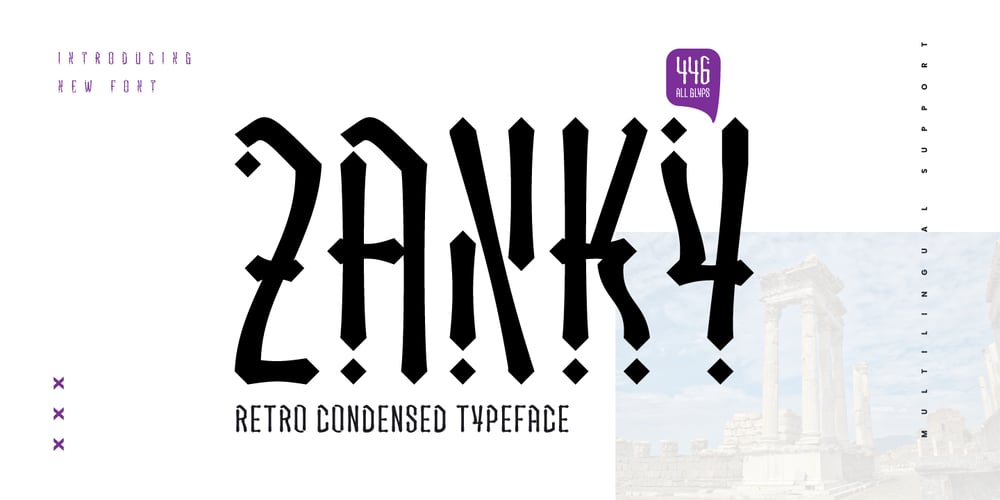
Zanky Font Family was designed by Lita Faolina and published by Product Type. Zanky contains 1 styles and family package options. Introducing Zanky, the perfect solution for any project that requires a touch of retro, vintage, and classic display. With its unique condensed shape and stylistic set alternate, this font is the perfect addition to any design project.Zanky’s unique condensed shape ensures that it stands out in any design project, making it the perfect choice for anything from logos to posters. Additionally, its stylistic set alternate feature provides even more design flexibility, allowing you to create unique and eye-catching designs with ease.Whether you’re working on a vintage-inspired project or simply looking to add a touch of classic display to your design, Zanky is the perfect font for the job. Try it out today and see the difference it can make in your designs. What’s Included :- File font WOFF, WOFF2, CSS, HTML- All glyphs Iso Latin 1- We highly recommend using a program that supports OpenType features and Glyphs panels like many Adobe apps and Corel Draw, so you can see and access all Glyph variations.- PUA Encoded Characters – Fully accessible without additional design software.- Fonts include Multilingual support